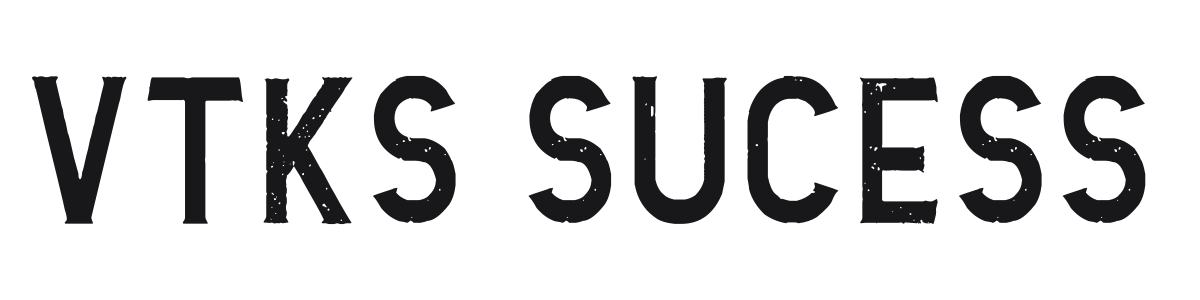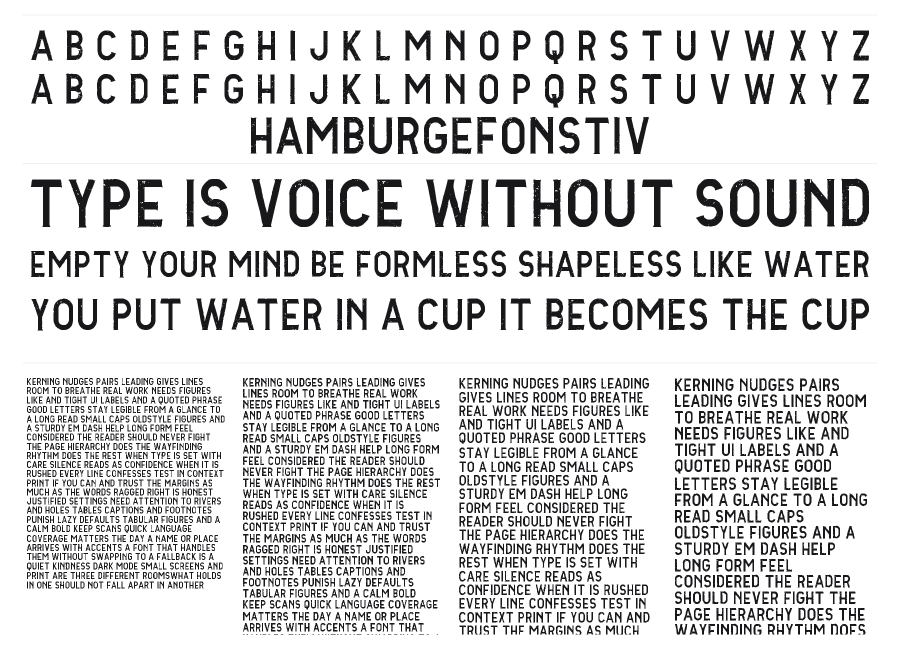
Vtks Sucess
Vtks Sucess is a condensed bold sans-serif with a heavy distressed texture that reads like aged ink on rough paper. The underlying structure is clean and utilitarian, close to a mid-century American industrial grotesque, but the worn surface gives it raw, tactile energy. Strong at large sizes where the grain and texture can breathe.